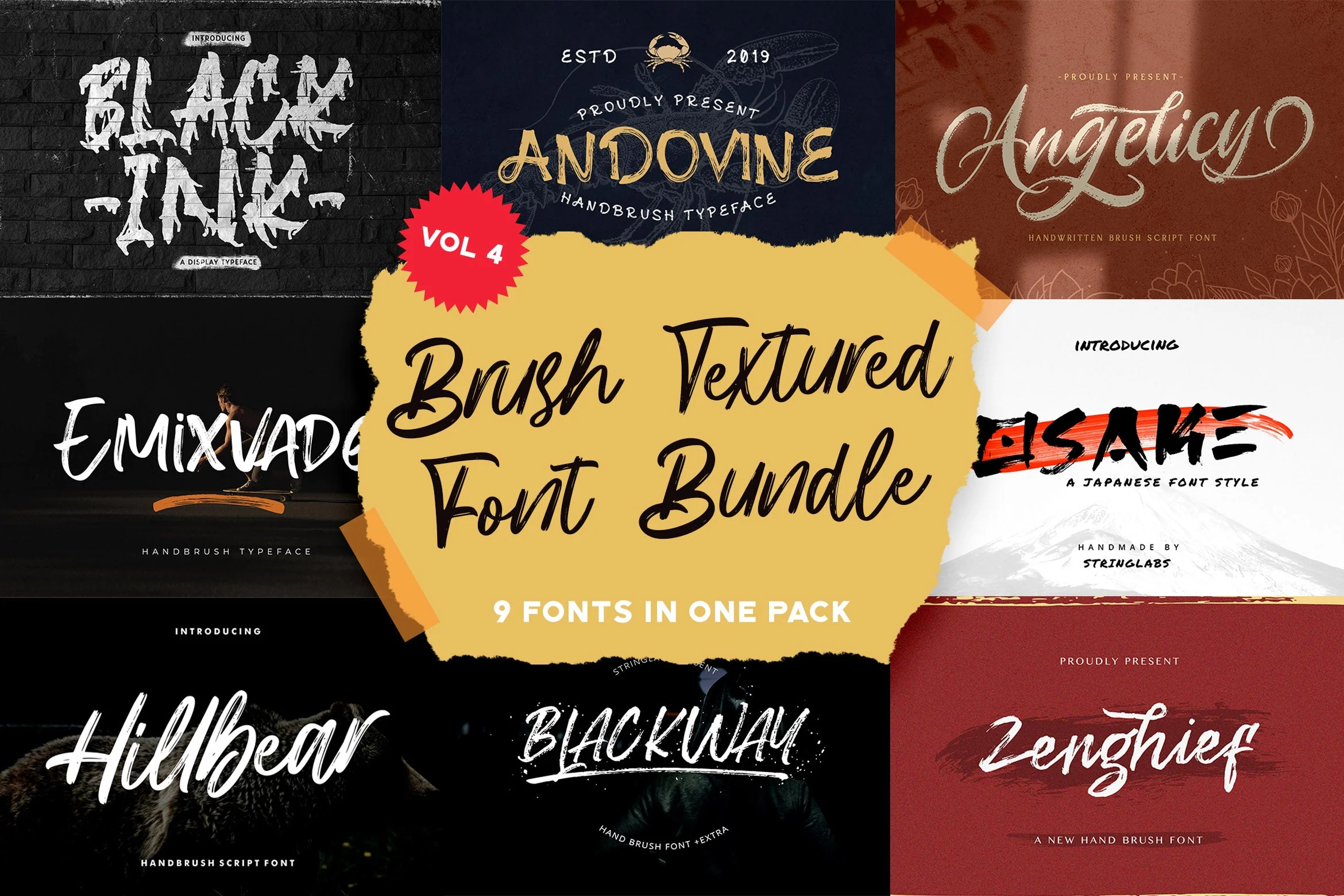
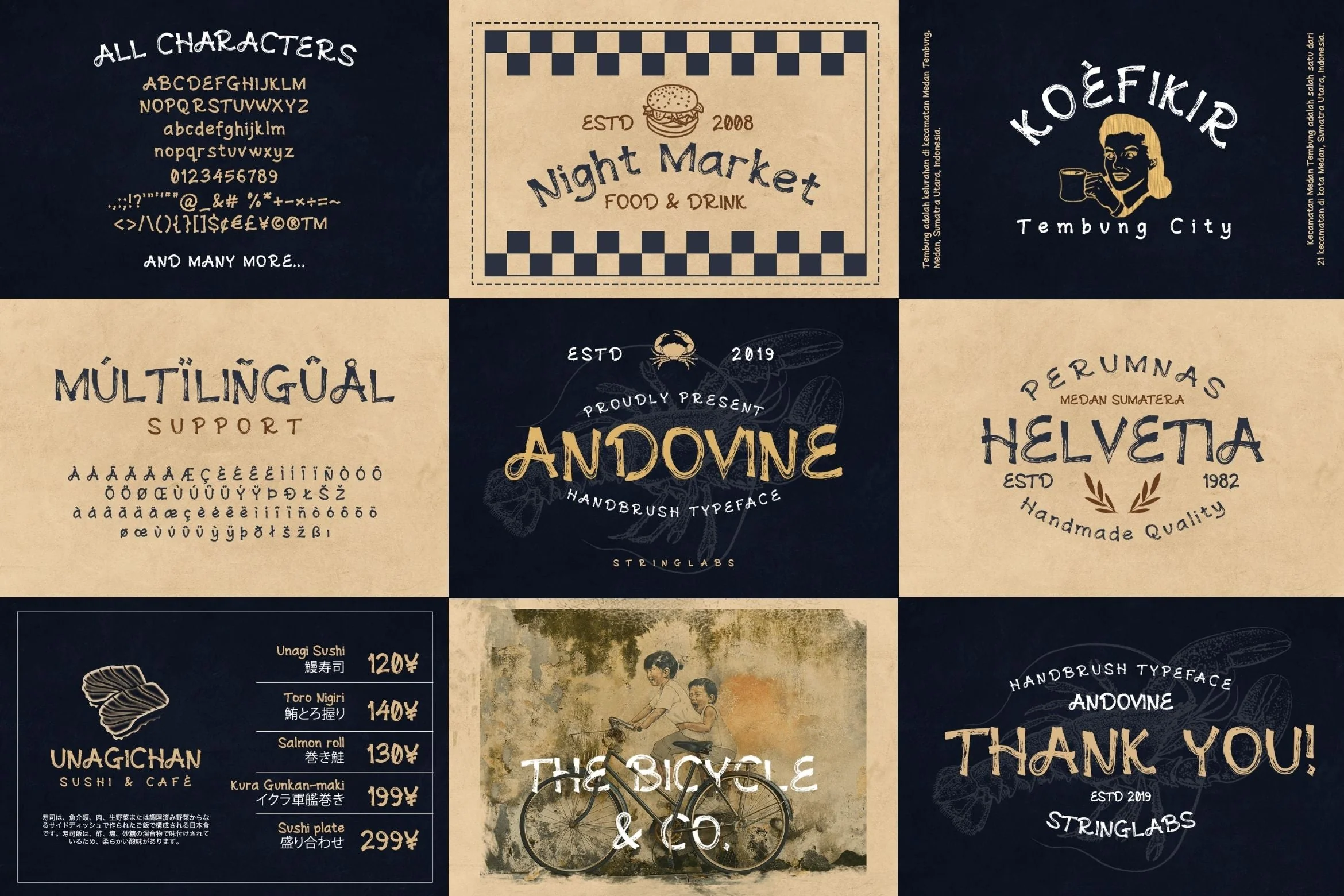
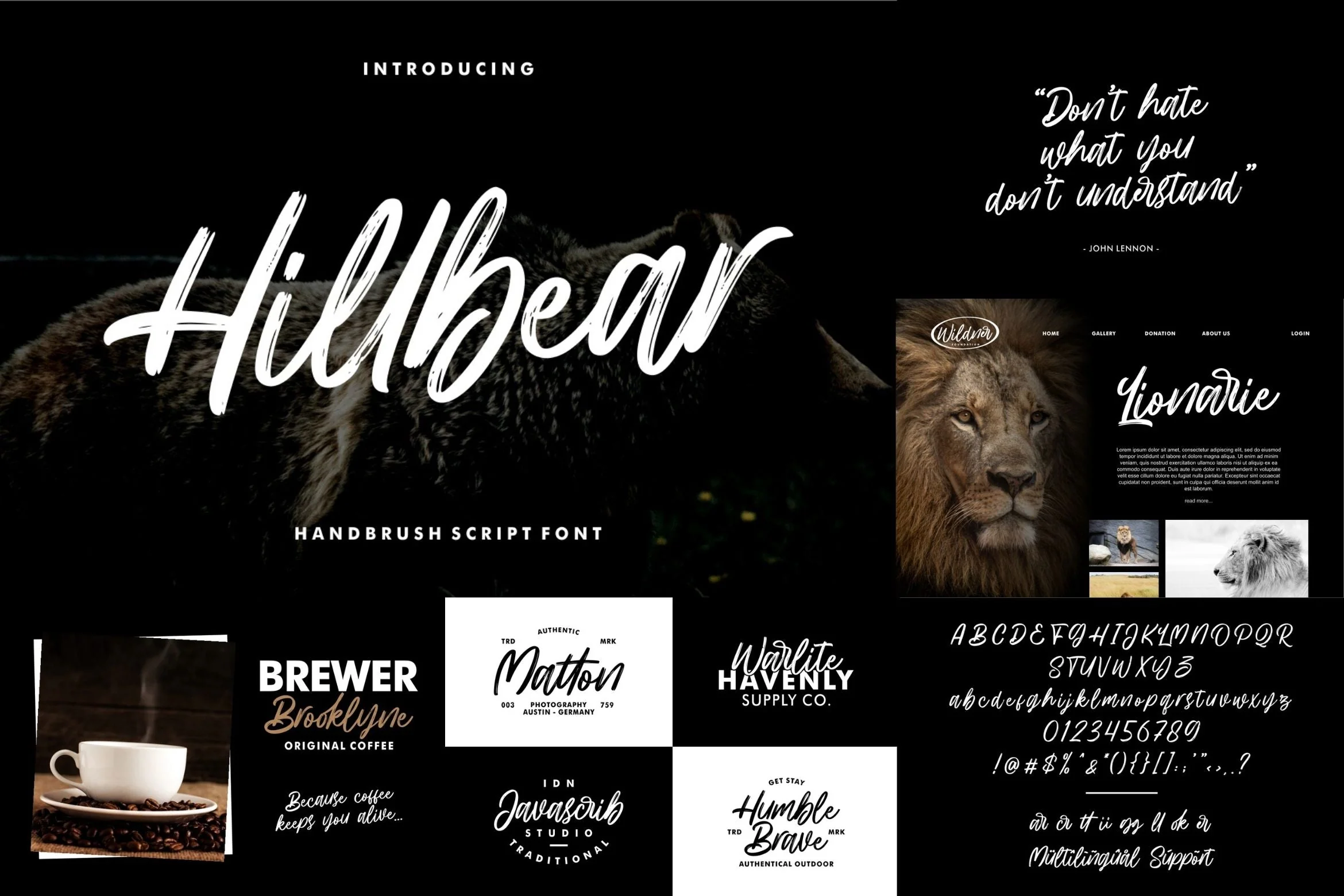
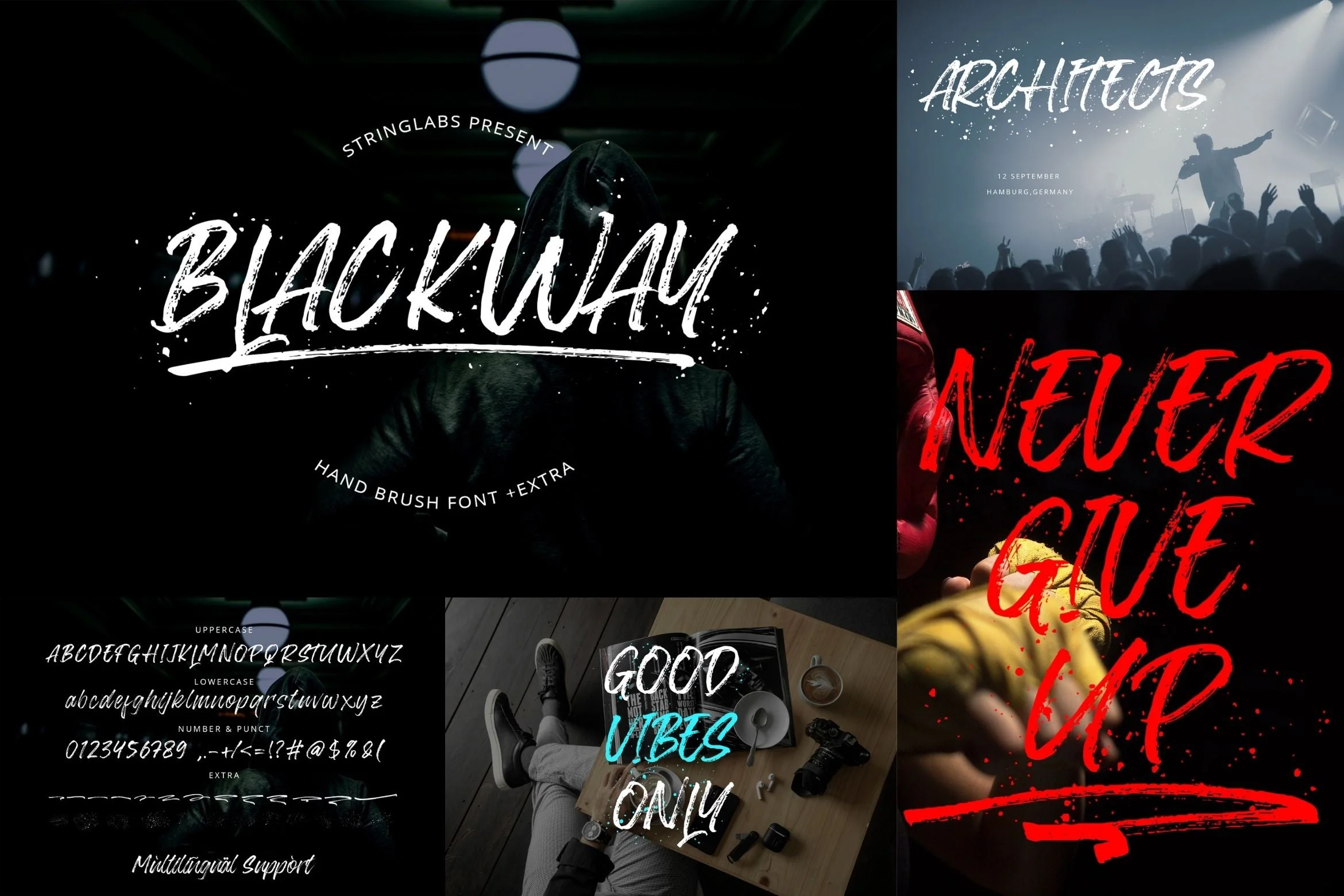
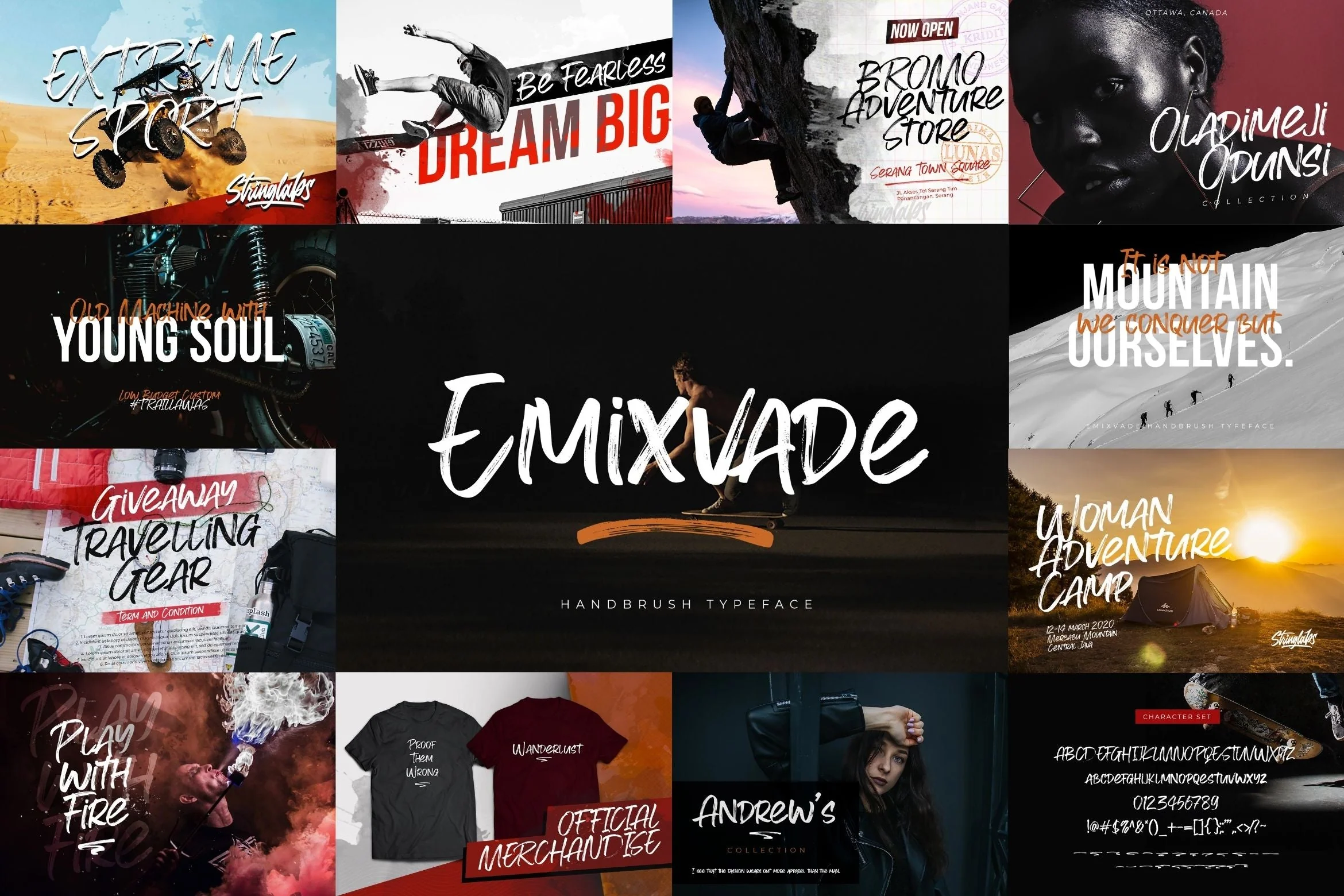
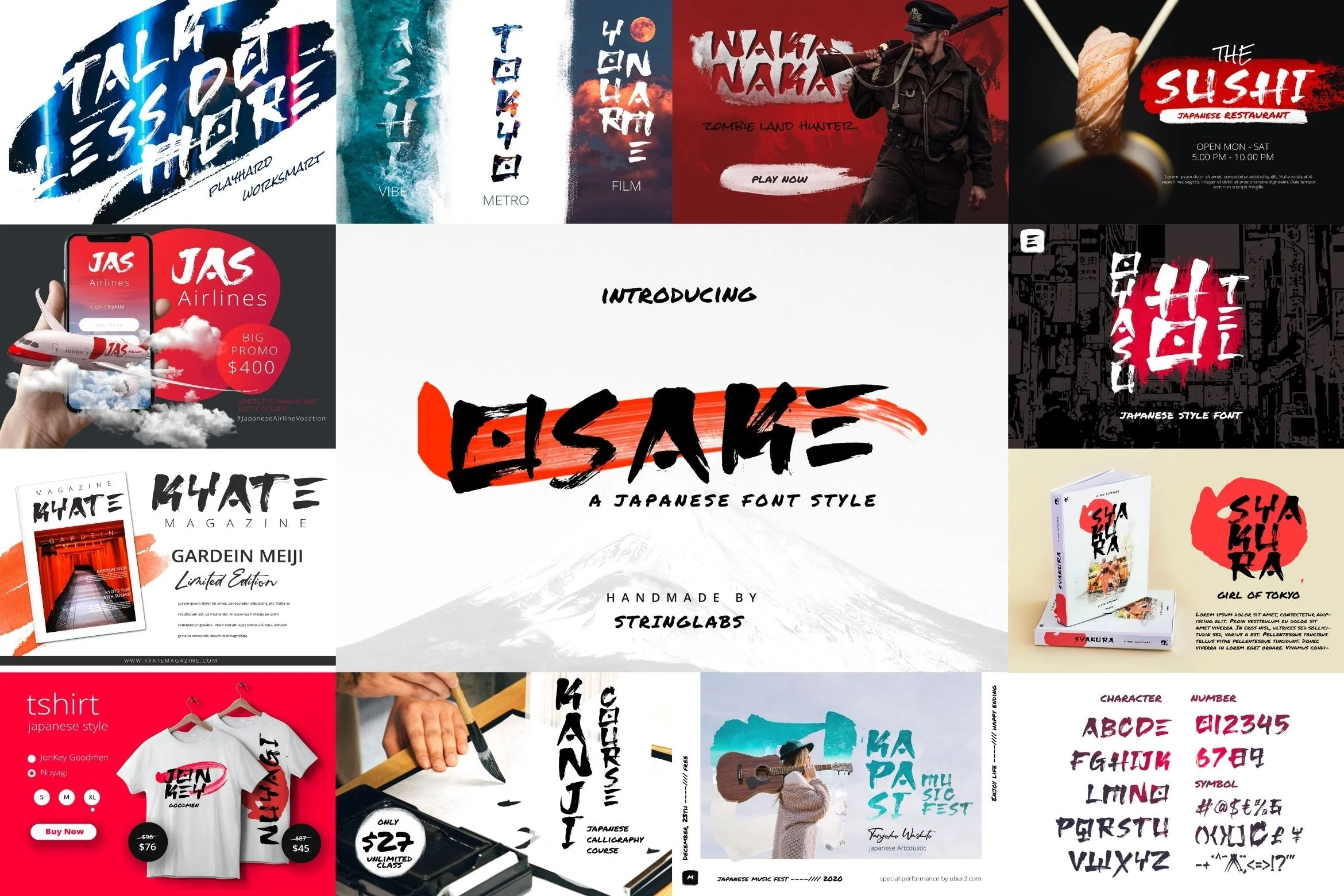
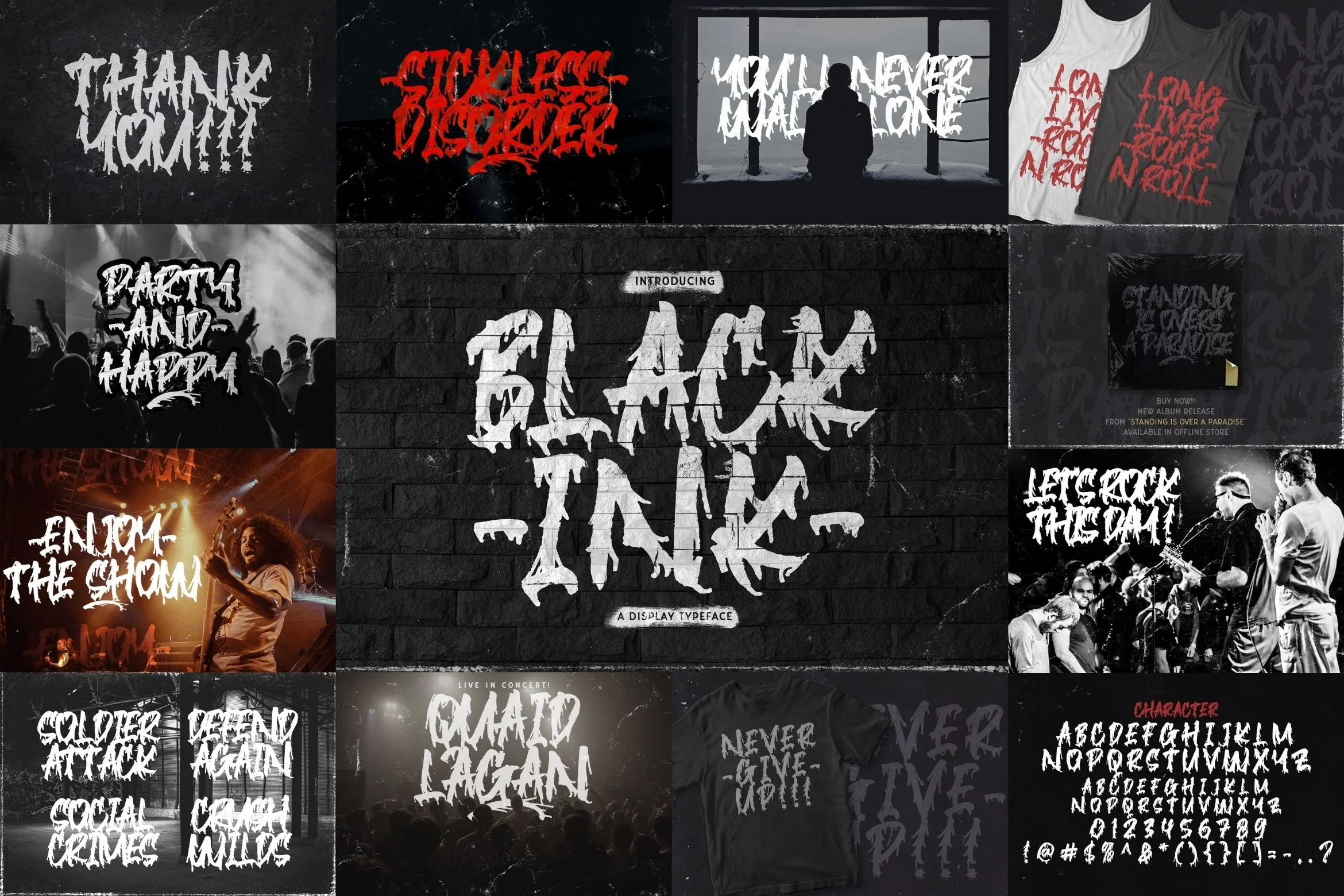
Brush Textured Font Bundle Vol. 4
Introducing Brush Textured Font Bundle Vol. 4 This font bundle contains 9 high quality textured handbrush fonts with authentic and unique styles. This Brush Font Bundle is a cool, brushed display font. This original and bold look will appeal to a wide range of crafty ideas, from letterheads and titles, to stationery. This Font Bundle is a lovely and brushed script font that exudes elegance and class. This font was particularly crafted for those who need a beautiful and refreshing look to their designs. Get inspired by its unique and beautiful style and add it to your favorite designs!
1. Blackink
2. Angelicy
3. Zenghief
4. Anttariksa
5. Osake
6. Emixvade
7. Blackway
8. Hillbear
9. Andovine